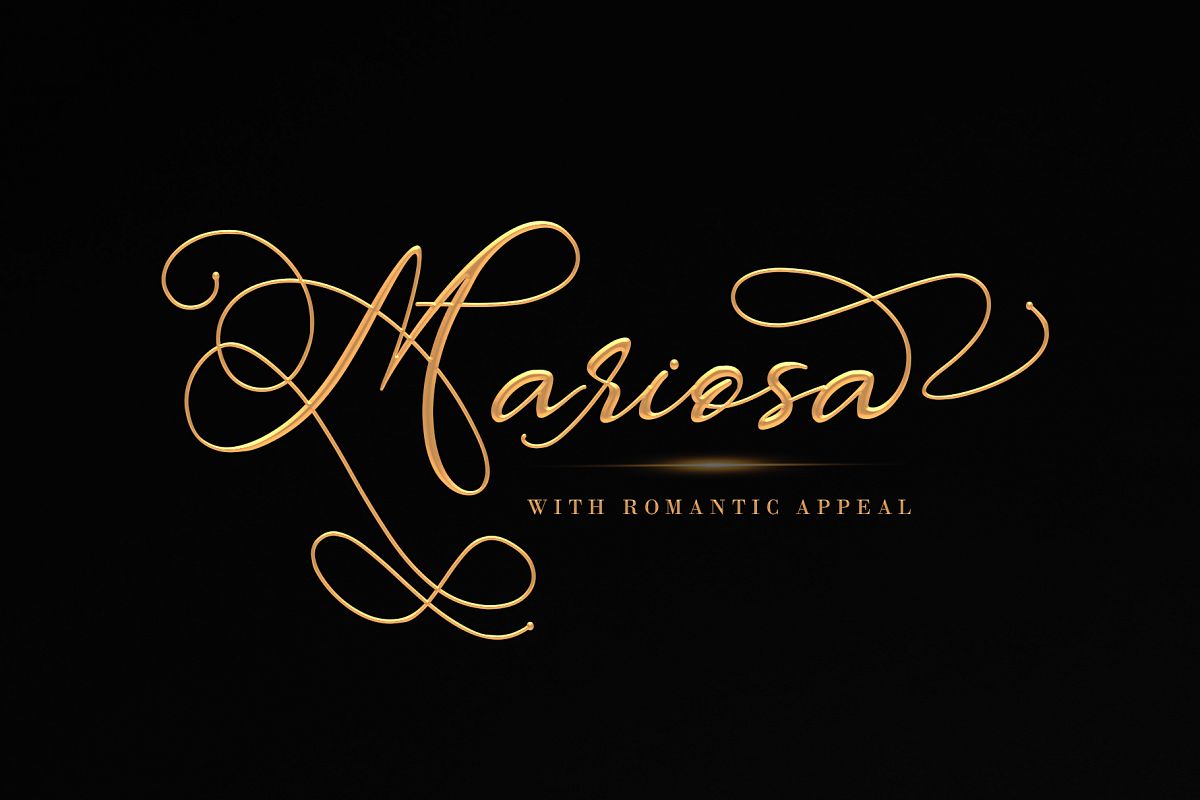
Mariosa is an elegant font with a romantic appeal; this font is for those who
are in need of an elegant and appropriately modern calligraphy script. Get inspired
by its bold swashes.